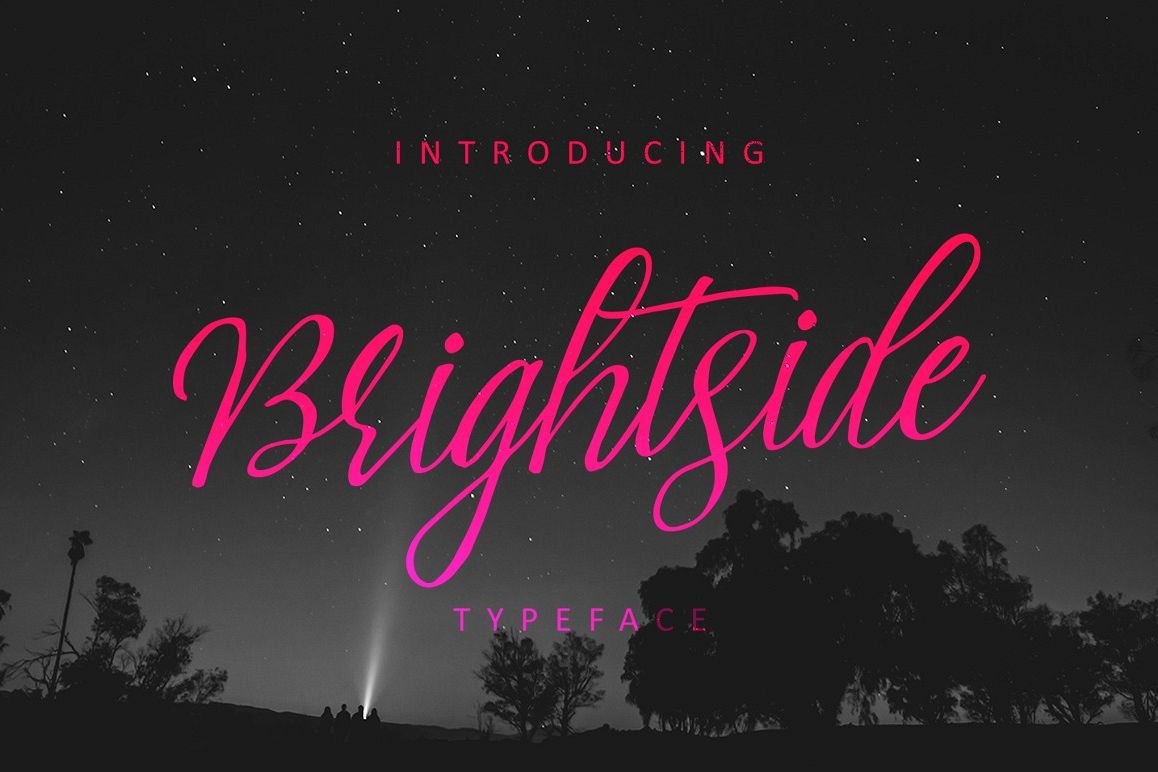
Created By Queentype
Brightside Typeface
? Introducing Brightside Typeface ?
Brightside Typeface is a beautiful handmade script give the natural looks. Alternate character contain with opentype features. Stylistic alternates, Ligature and more. You can access all those alternate characters by using OpenType savvy programs such as Adobe Illustrator and Adobe InDesign.
Great for Apparel Brand, Logos, printed quotes, invitations, image overlays, greeting cards, product packaging, text headers, any greeting cards, book cover, Painting design style, or any design that needs natural and personal touch & whatever else your imagination holds! . Mix and match the alternate characters to add an attractive message to your design.